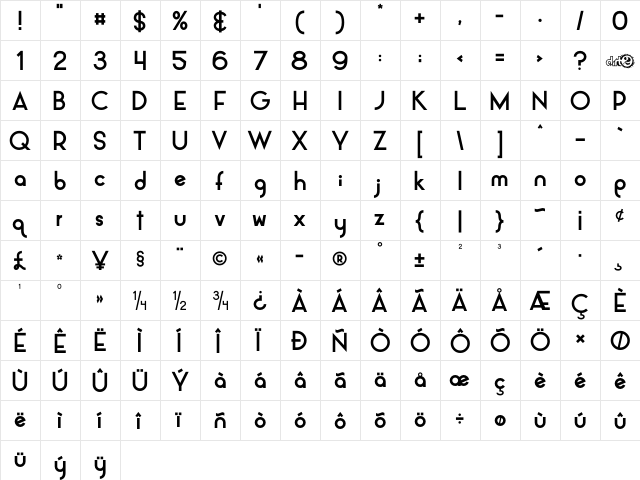
Alpaca Scarlett Demo Regular
Design Context for Alpaca Scarlett Demo Typeface
Alpaca Scarlett Demo is a composed and adaptable typeface that performs quietly and consistently across a wide range of design contexts.